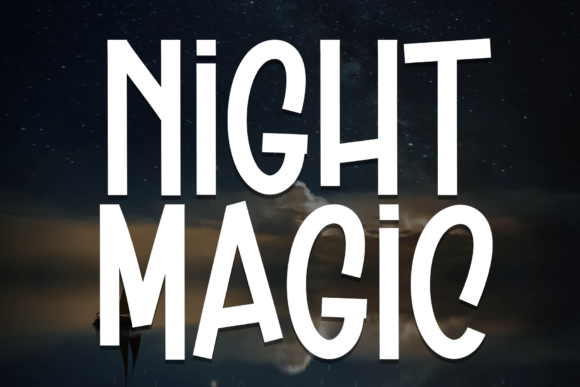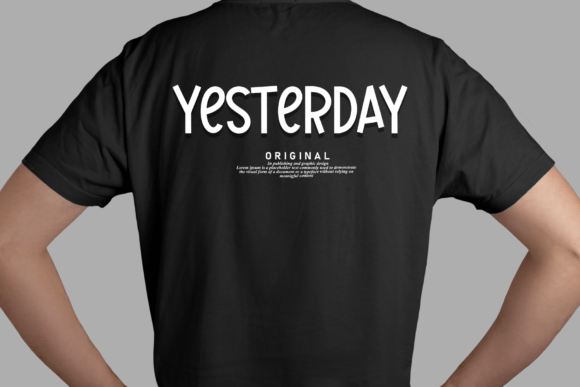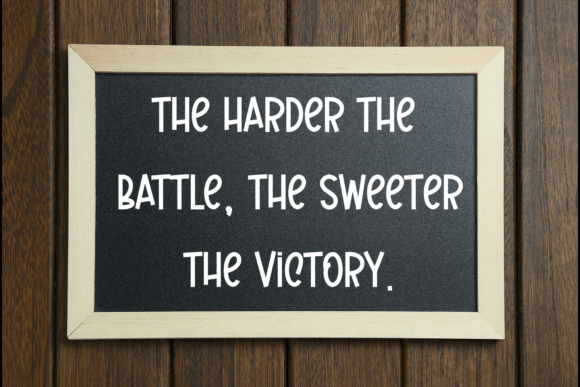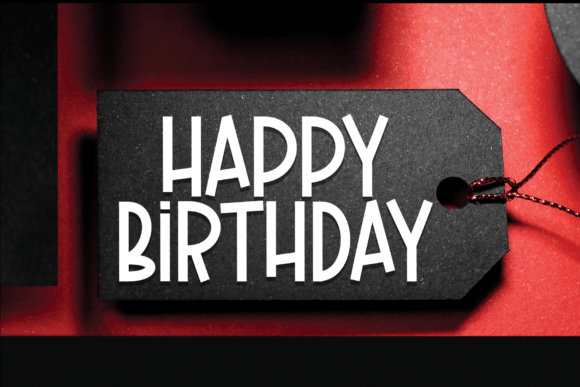
Night Magic Font: A Whimsical Display Font for Fantasy Branding
About the Night Magic Font
Welcome to the world of Night Magic Font, a typeface that will inspire your next great project. Night Magic is a tall, quirky display font with a touch of whimsy and mystery. Its playful proportions and slightly offbeat style are perfect for fantasy themes, children’s books, magical branding, or nighttime party invitations. This font captures the charm of starlit skies and dreamy stories.
Night Magic excels as a headline font for projects needing a touch of playful mystery. It’s ideal for posters, branding for whimsical businesses (e.g., children’s boutiques, fantasy-themed cafes), and packaging for magical or enchanting products. Avoid using it for body text or UI elements; its quirky nature and tall x-height compromise readability in extended passages.
Pair Night Magic with a clean sans-serif like Lato or Open Sans for a balanced contrast, or a classic serif like Garamond for a touch of refined elegance. For a more playful approach, consider pairing it with a rounded geometric sans-serif.
The font’s overall personality is whimsical and bold, yet maintains a touch of sophistication, making it suitable for brands that want to project a sense of fun and magic without being childish or overly frivolous.
Night Magic Font Usage Examples
Night Magic Font Example